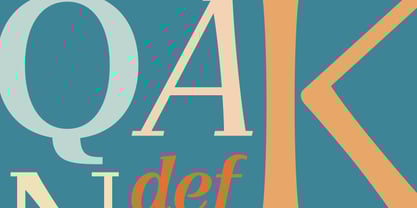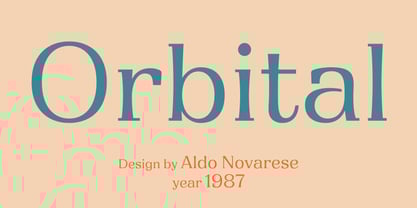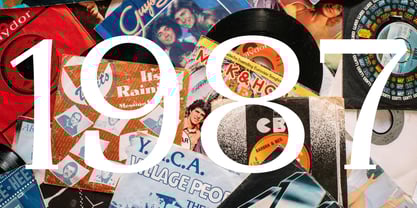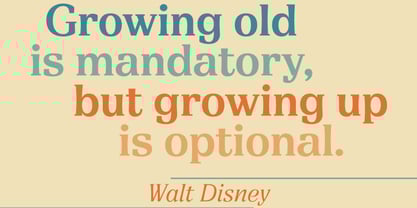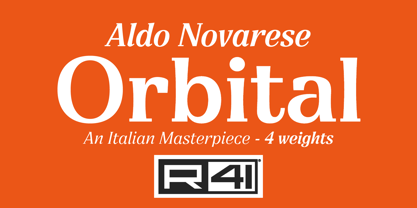
Orbital
by Reber R41
The Orbital Font Family was designed by Aldo Novarese, Fulvio Bisca, Stefano Torregrossa and published by Reber R41. Orbital contains 4 styles and family package options. More about this family
A Bodonian in interstellar space: Orbital, born in 1987, is an extraordinary typeface that stands out in the design world. Closely related to the Helvetica family yet softer in appearance, it showcases meticulous craftsmanship through its design and stencil details. This unique blend of modernity with a classic touch truly embodies Aldo Novarese’s spirit and artistry. With its notably high x-height, it ensures excellent legibility, making it suitable for various applications, from headlines to body text. This versatile typeface proves that inspiration knows no bounds, transcending the limits of gravity.
Designers: Aldo Novarese, Fulvio Bisca, Stefano Torregrossa
Foundry: Reber R41